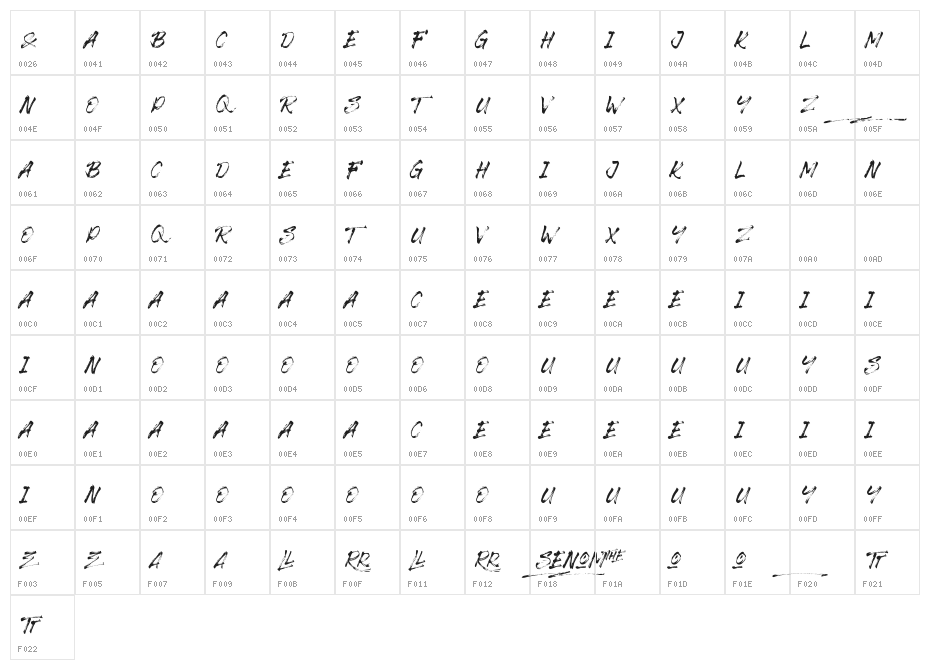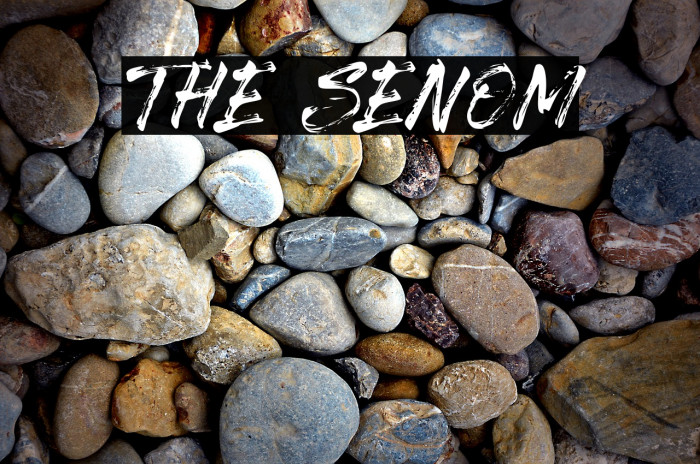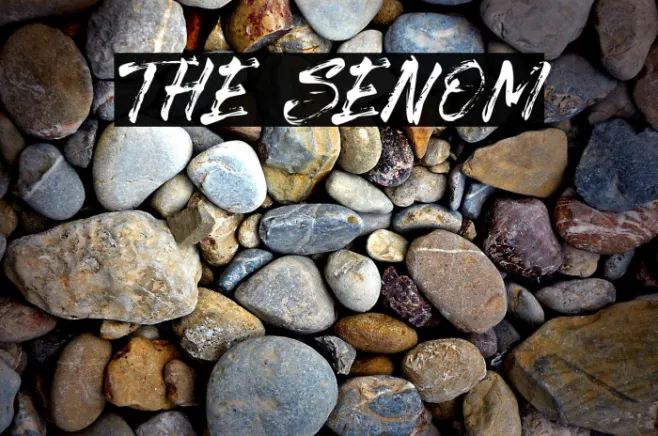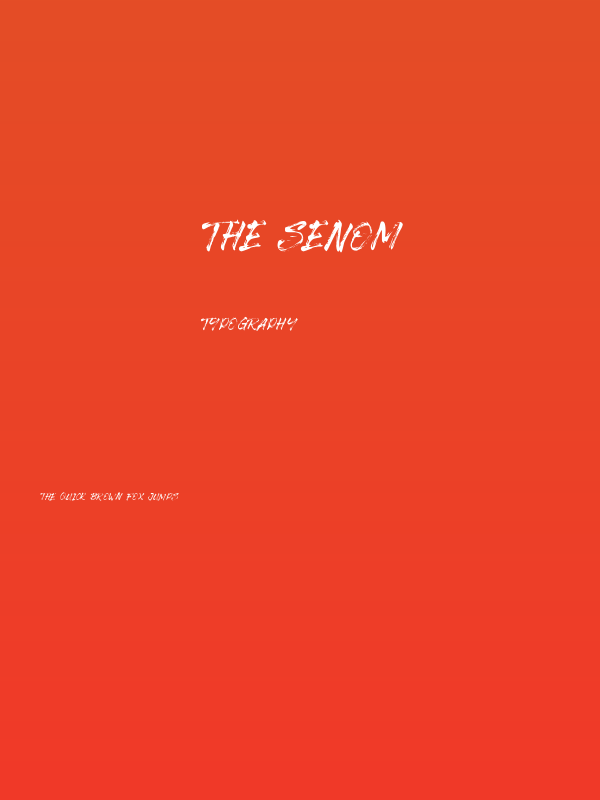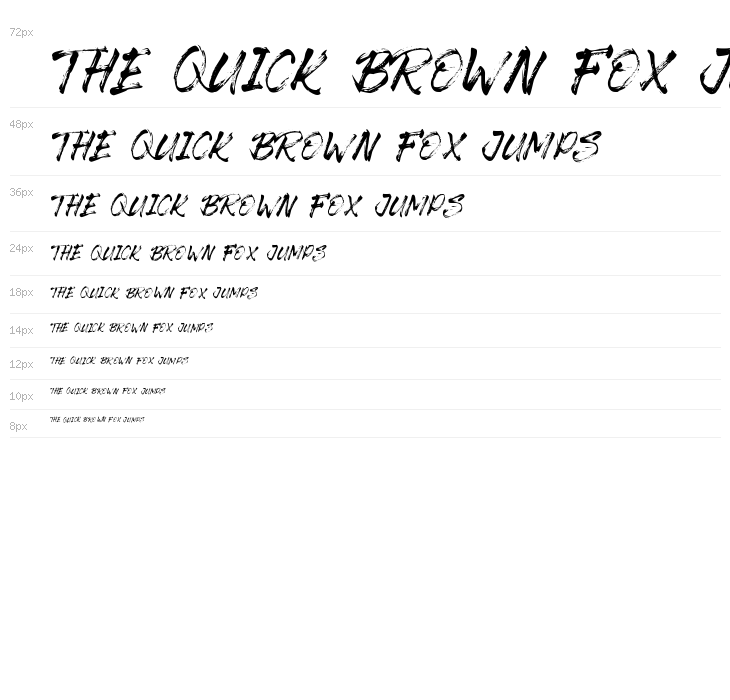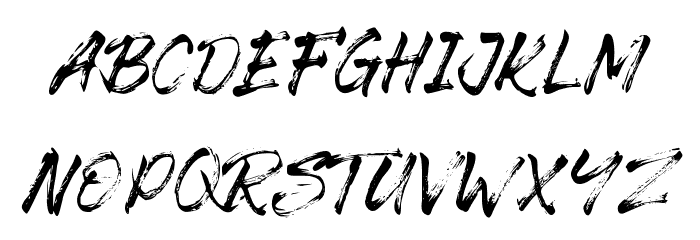
The Senom Font
The Senom Description
This font features a bold and expressive brush script style, characterized by its dynamic and energetic strokes. The letters have a hand-painted appearance, with varying thickness and a slightly rough texture that adds a sense of movement and spontaneity. The uppercase letters are particularly striking, with sweeping curves and sharp angles that create a dramatic effect. The lowercase letters maintain the same lively style, offering a cohesive look across the alphabet. This font is ideal for projects that require a bold and artistic touch, such as posters, branding, and creative designs.
| Proposed Projects | Ideal for posters, branding, creative designs, and any project needing an artistic touch. |